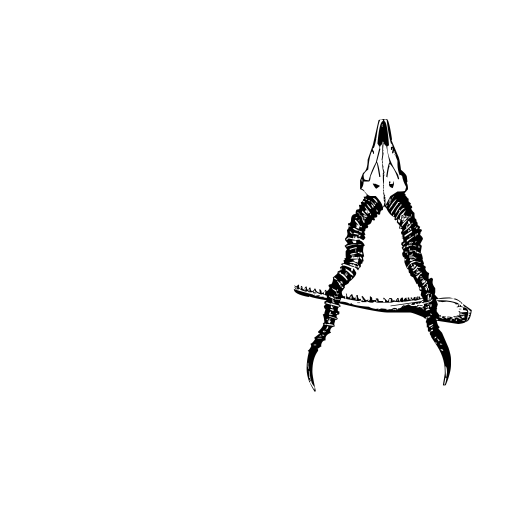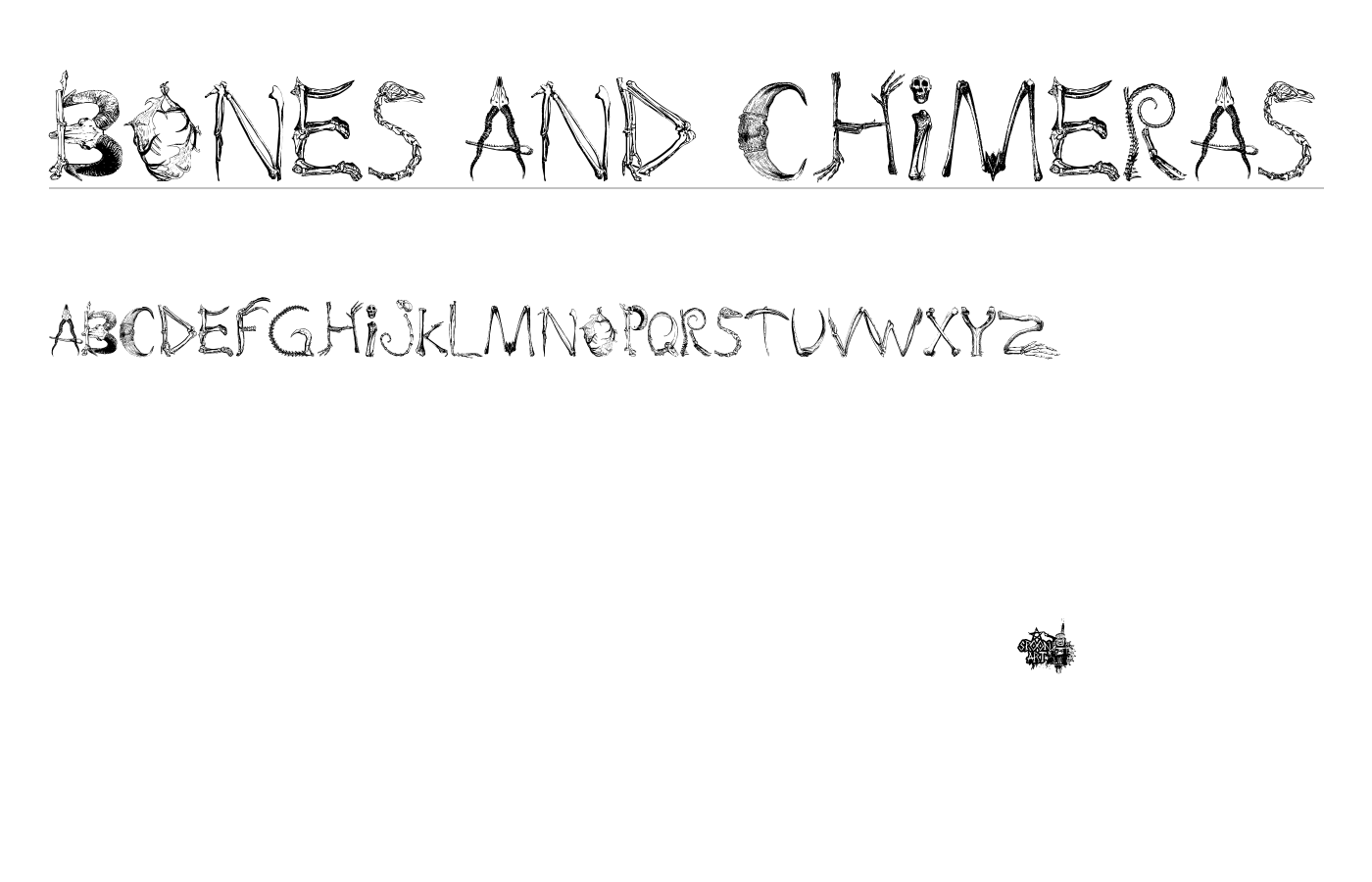
Bones and Chimeras is a highly decorative and artistic display font that creatively uses skeletal and mythical elements within each letterform, giving it a dark, eerie, and fantastical vibe. This all-caps font is designed for dramatic impact rather than readability, making it perfect for Halloween themes, fantasy projects, or any design needing an unsettling and imaginative atmosphere. Its intricate, hand-drawn style lends a unique personality ideal for posters, logos, and special event branding where a bold, spooky statement is desired.
bones and chimeras Font
About bones and chimeras Font